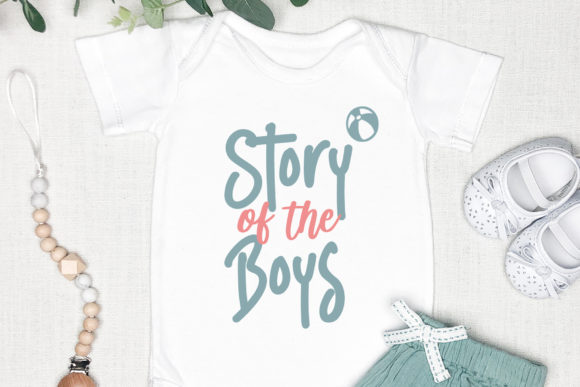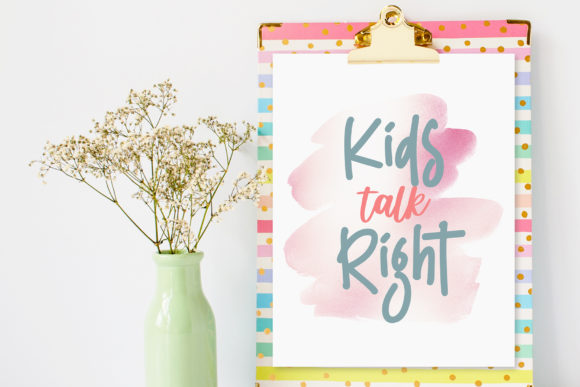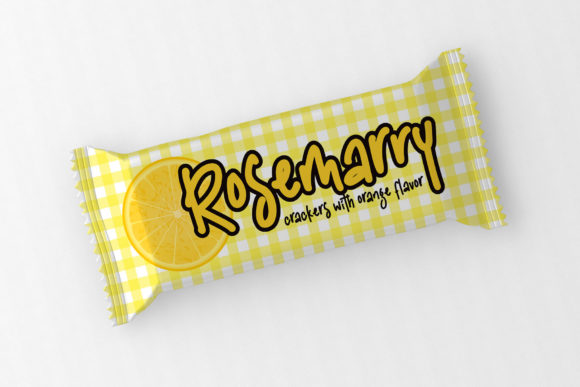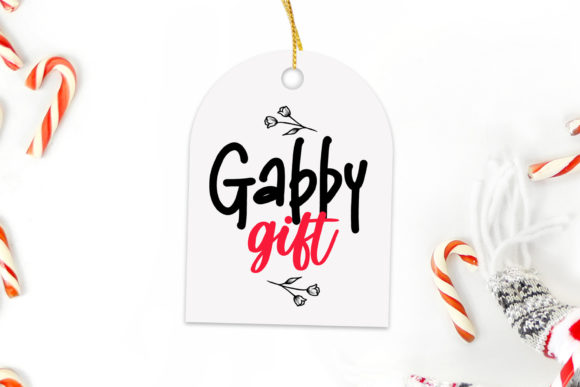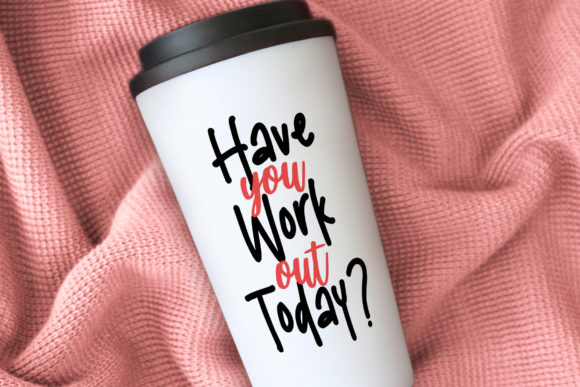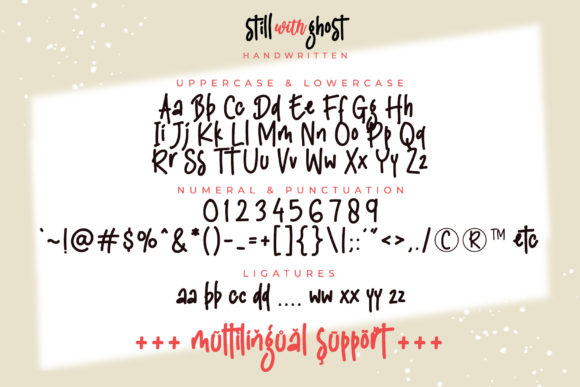
Still with Ghost Font
About Still with Ghost Font
Still with Ghost is a lovely handwritten font with playful and cute characters. This adorable typeface is perfect for any playful and cheerful projects such as crafting, stickers, sublimation, and many more. This font is PUA encoded, which means you can access all of the glyphs and swashes with ease!